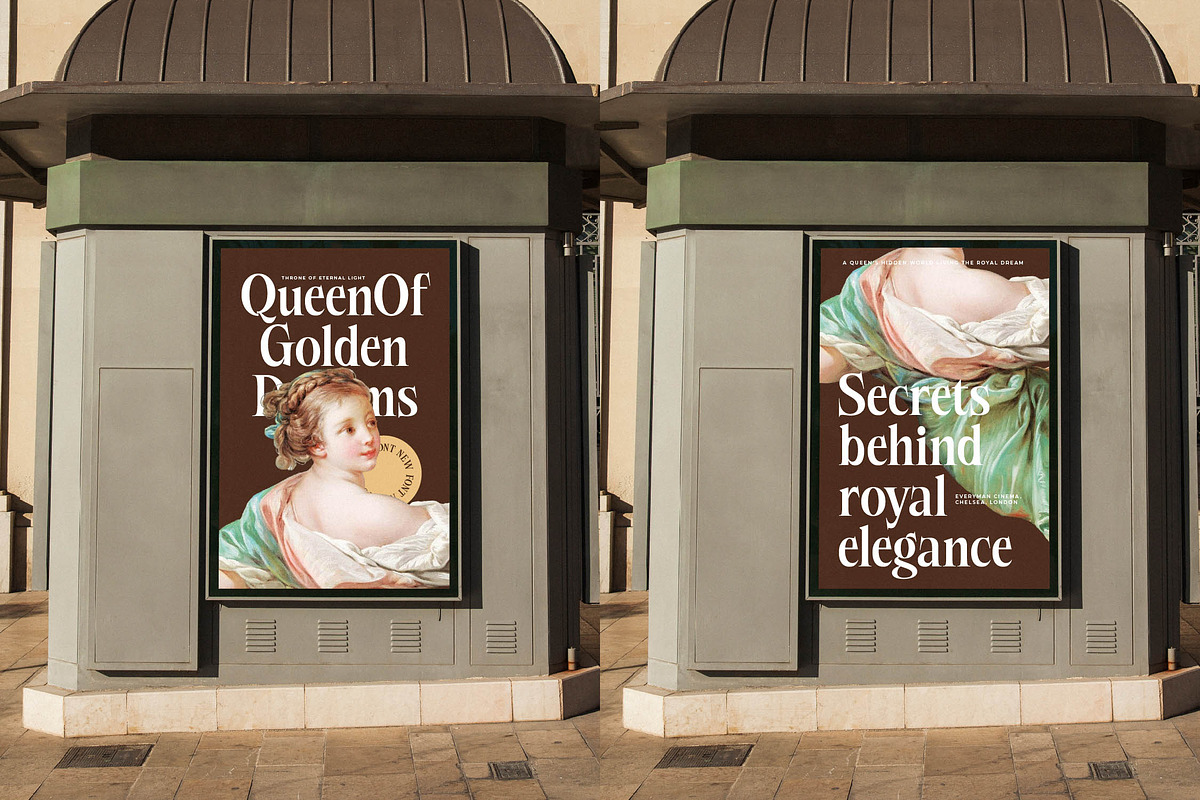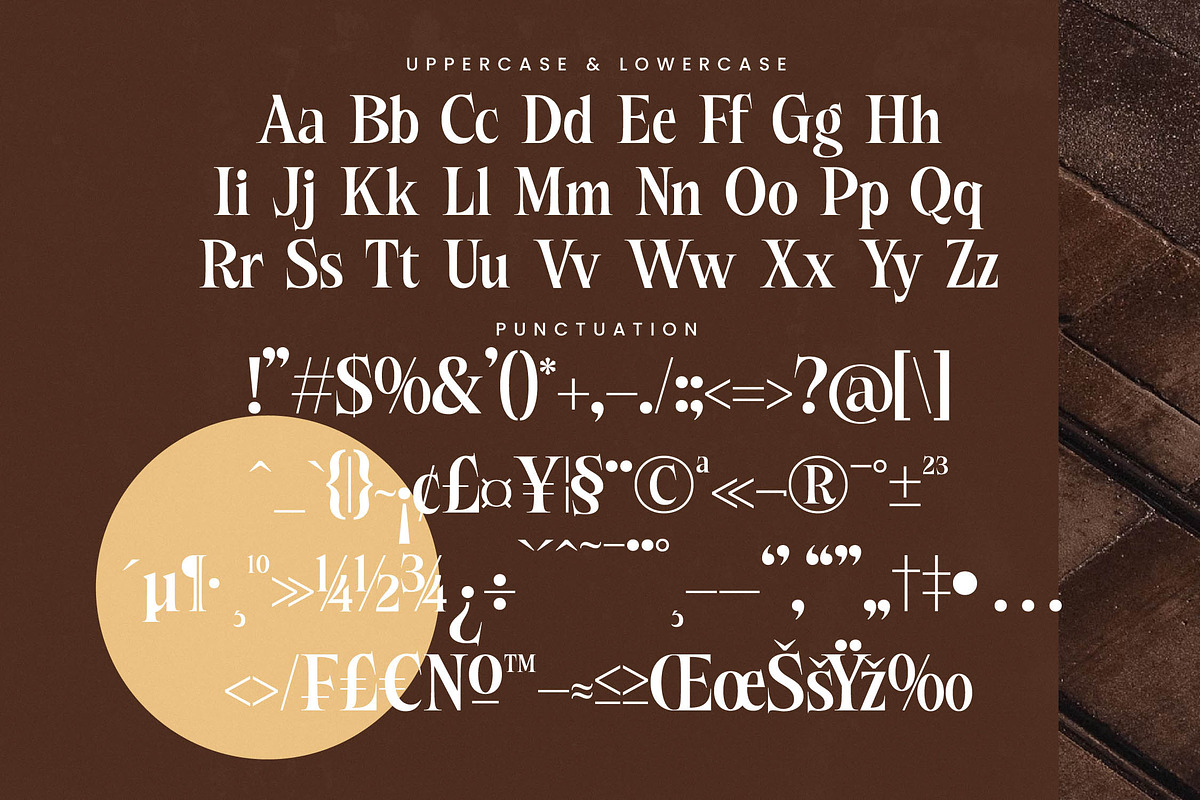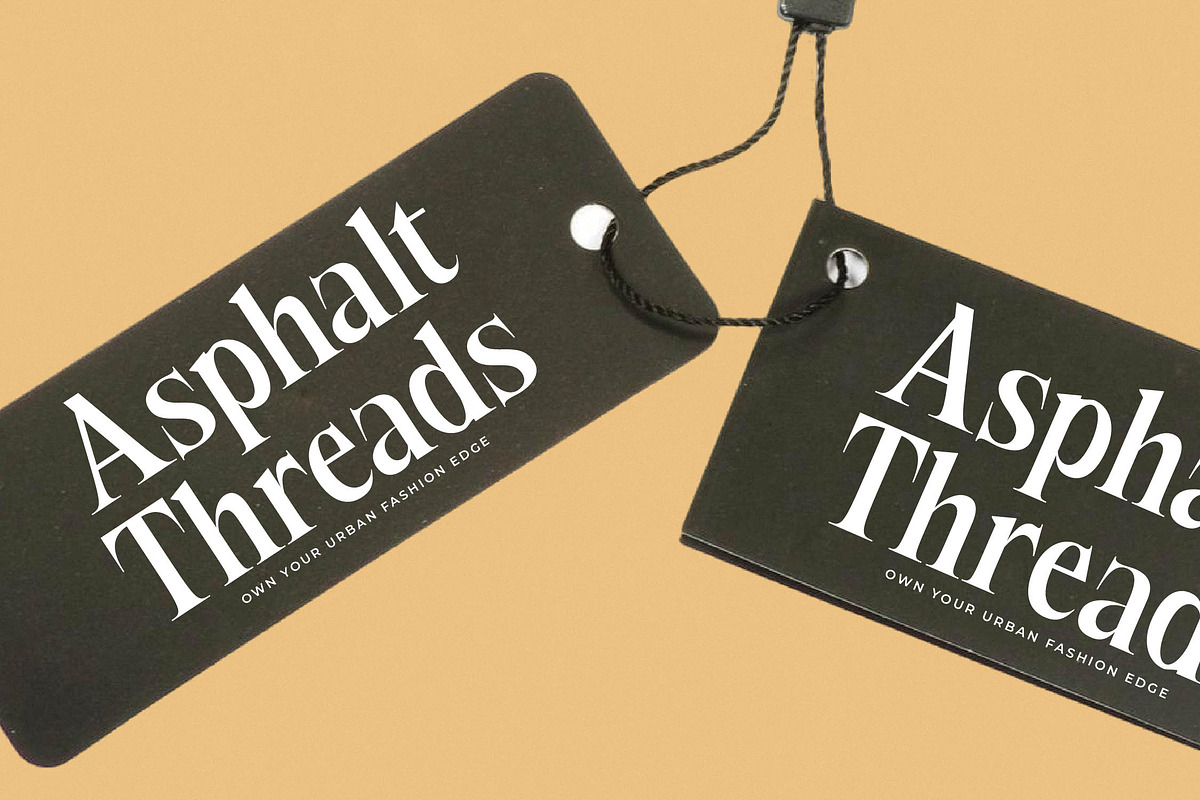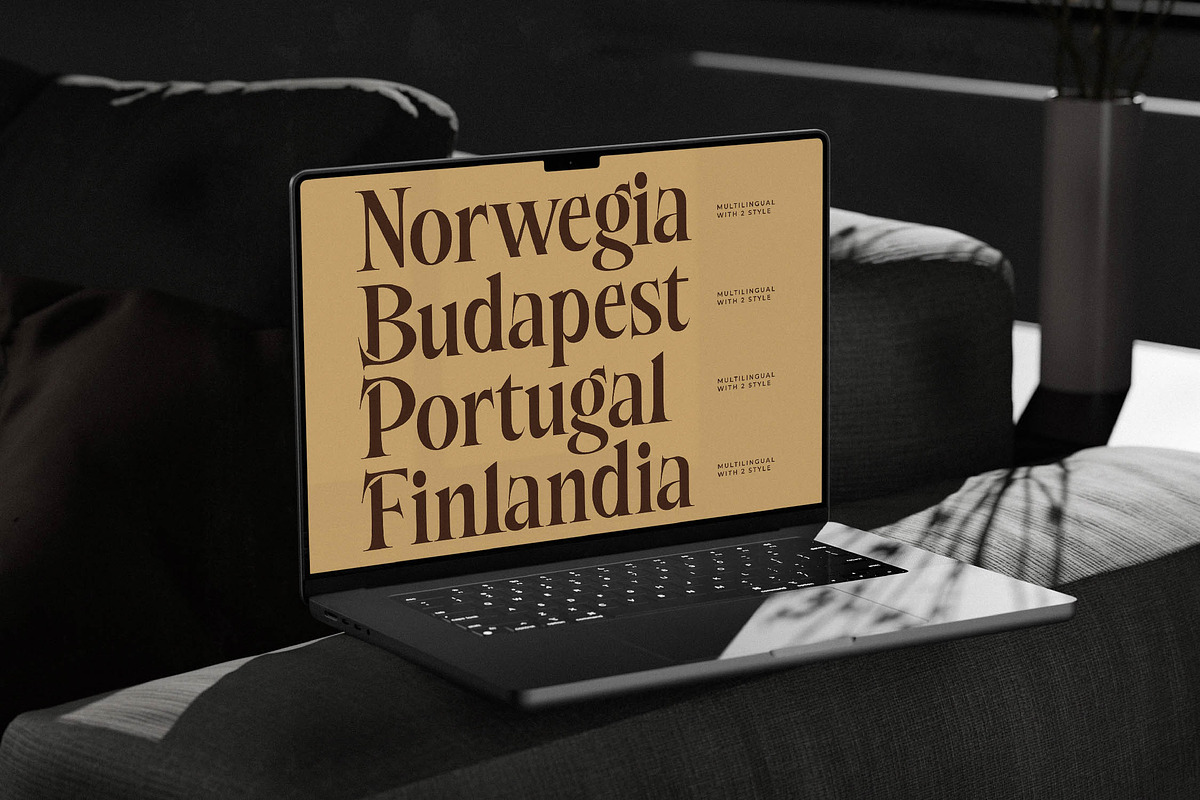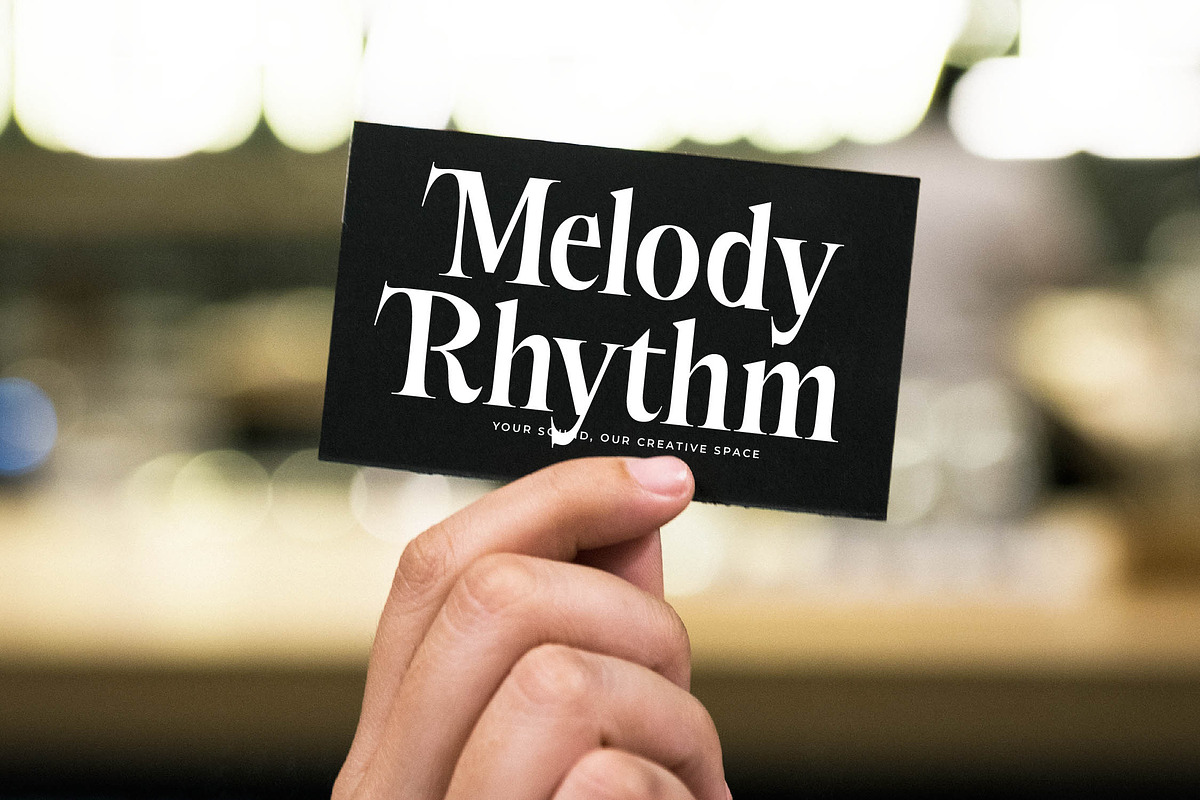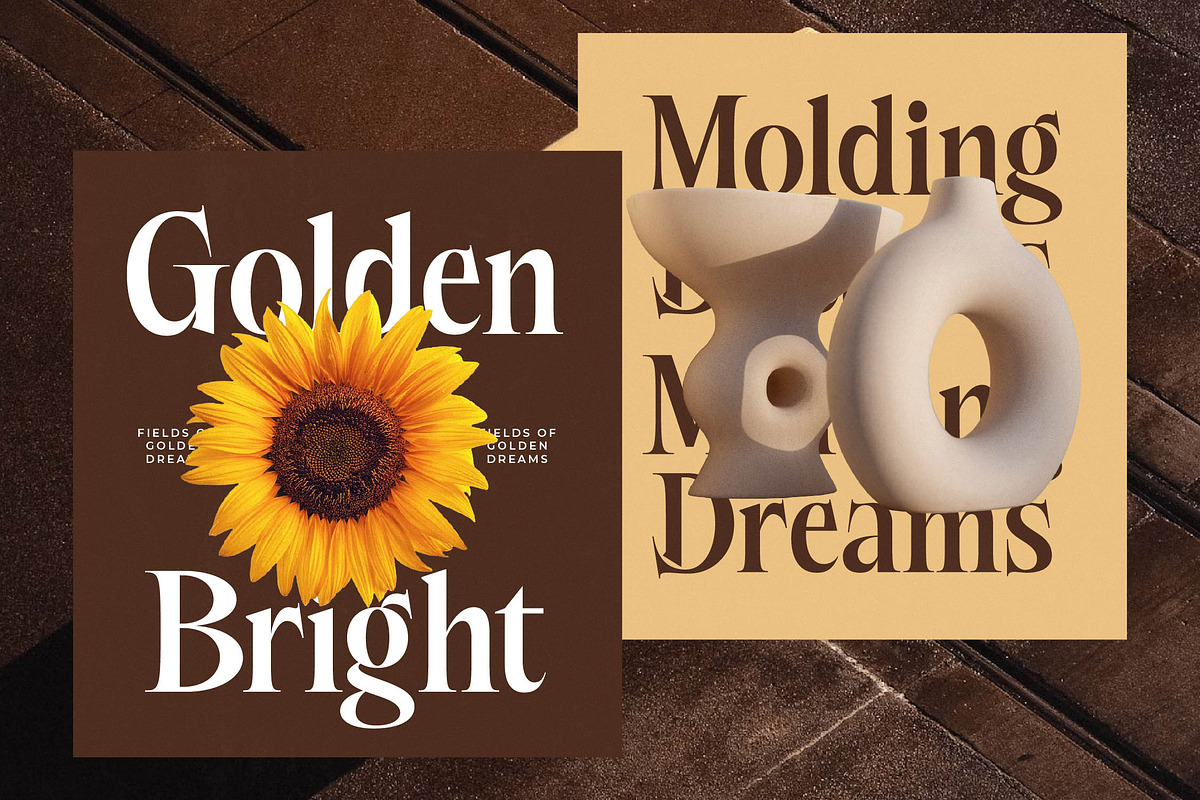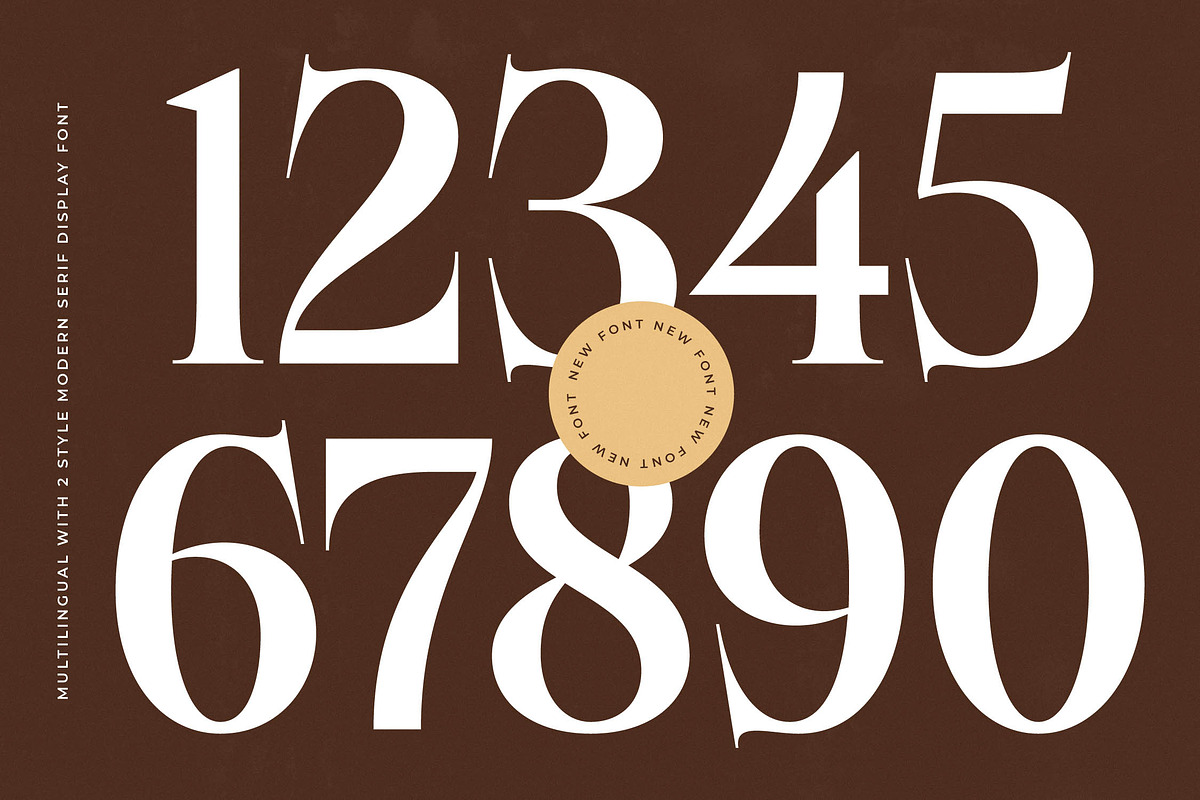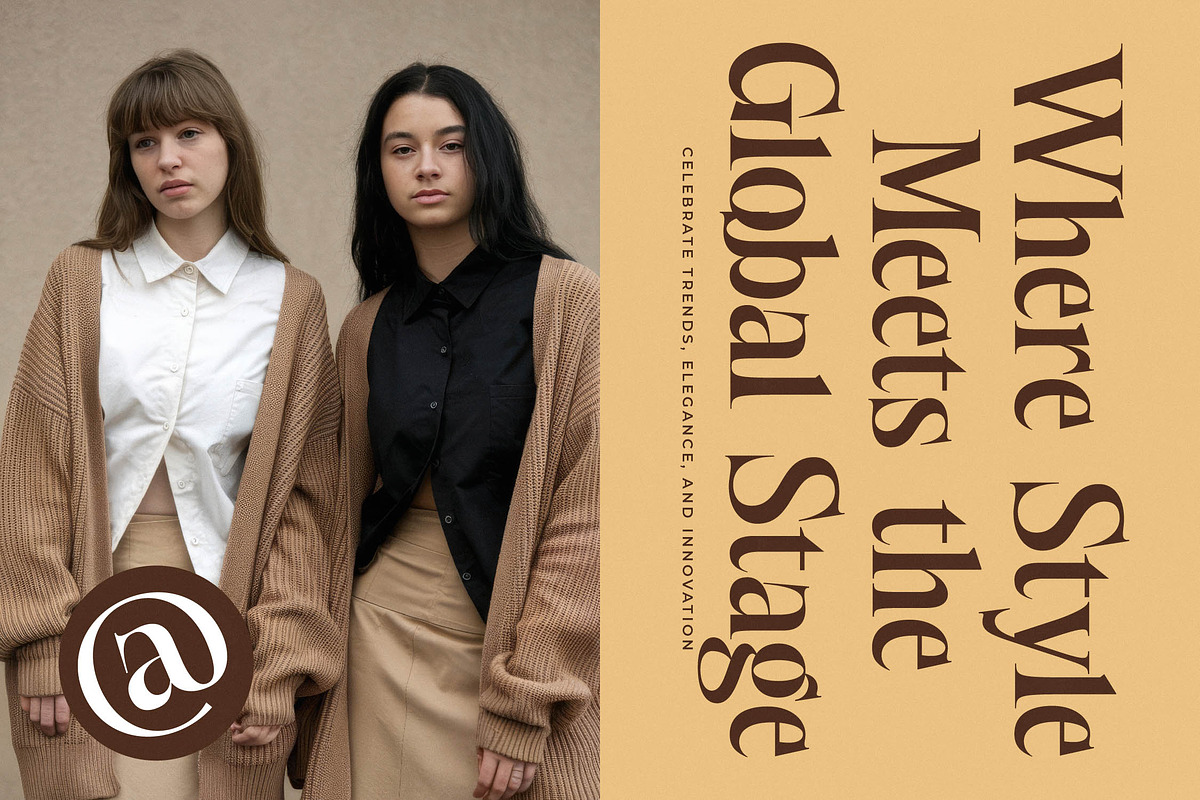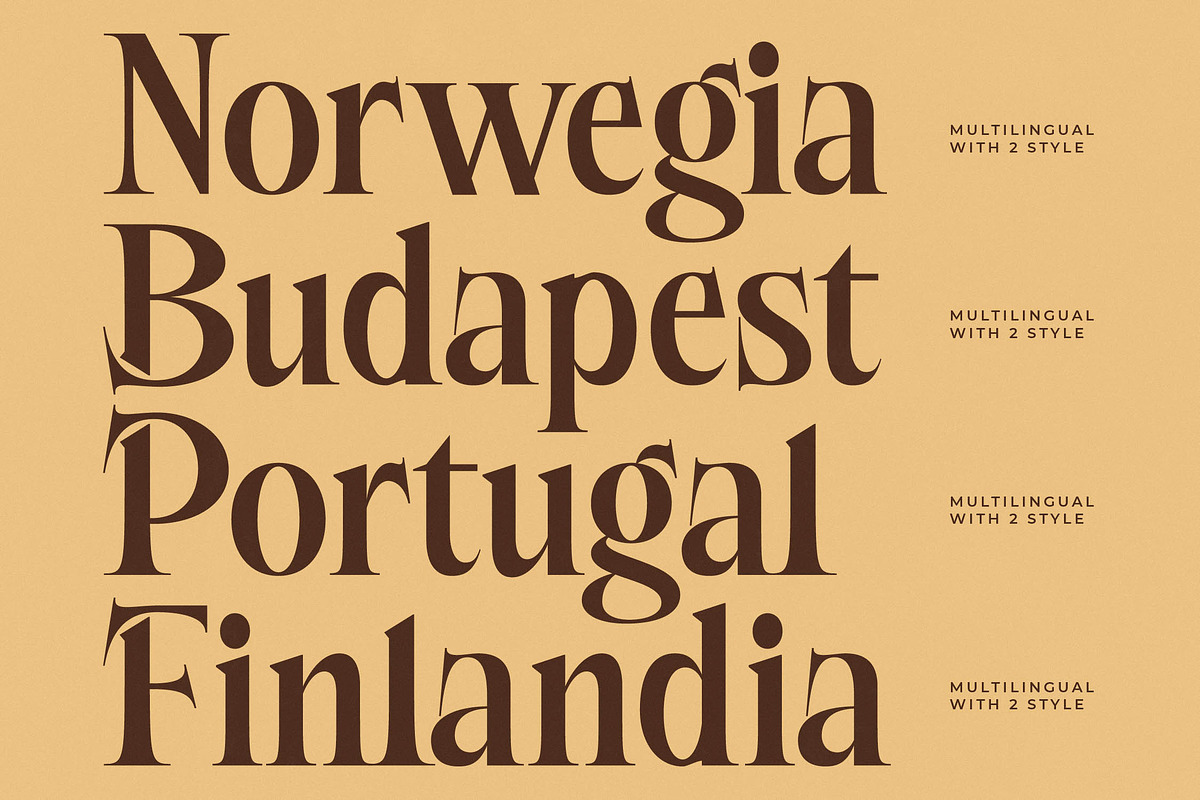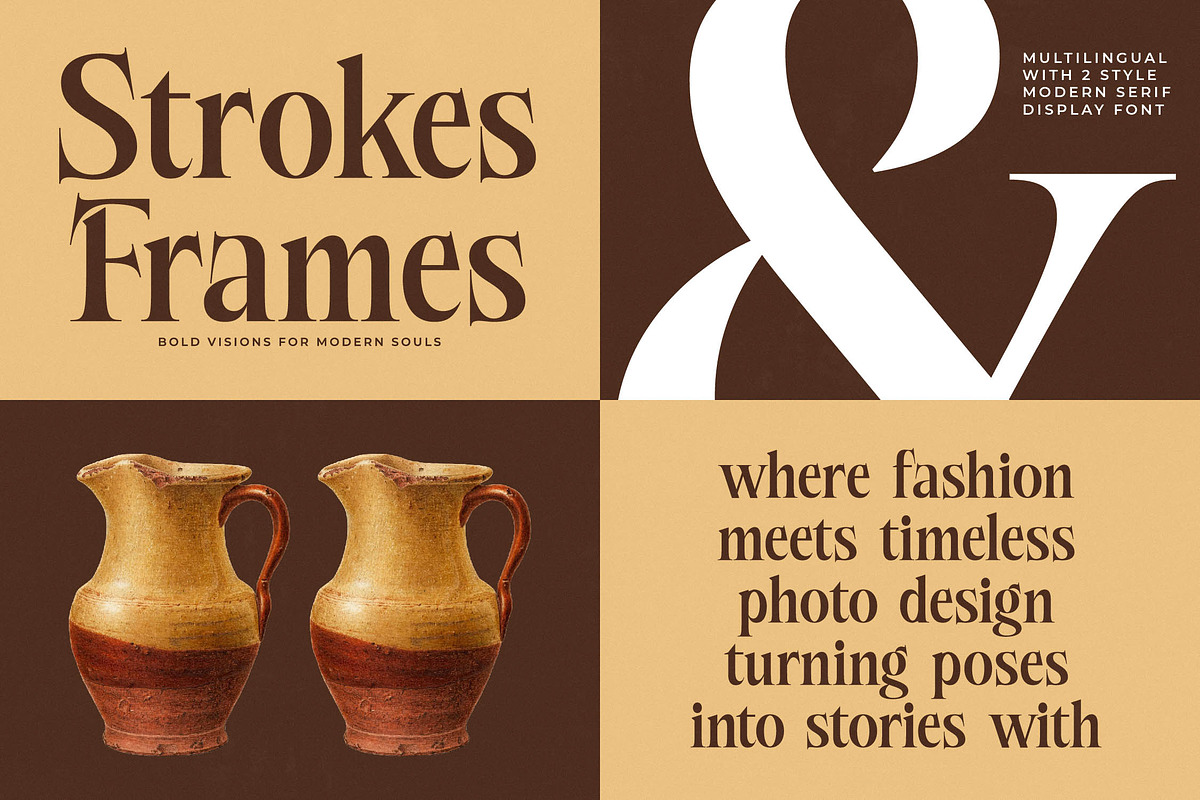
Besteza Modern Serif Display
Elevate your design narrative with the sophisticated allure of Besteza, a typeface that captures the essence of timeless elegance. This font transforms every word into a visual masterpiece, perfect for those who seek to leave a lasting impression.
Inspired by the golden era of automotive design and the sleek lines of vintage luxury, this typeface evokes a sense of cinematic nostalgia. It bridges the gap between mid-century class and contemporary precision, reflecting the confident spirit of high-end lifestyle aesthetics.
As a premier modern serif display, this typeface delivers a powerful branding impact through its meticulously crafted letterforms. The high-contrast serif strokes provide a rhythmic flow that defines luxury typography, making it an essential editorial font for projects that demand authority and grace.
Staying ahead of the modern serif trend, this typeface is designed to meet the demands of today's visual culture where character-driven typography is king. It stands out among editorial display fonts by offering a unique silhouette that feels both experimental and classic, ensuring your work remains at the forefront of design.
This versatile typeface is the ultimate choice for high-end logo design and comprehensive corporate branding identity systems. Whether you are working on a luxury editorial layout, premium product packaging, an elegant wedding invitation suite, or a cutting-edge fashion lookbook, it adapts seamlessly to any creative vision.
Boasting a rich library of 020 ligatures and 041 alternates, this font allows for endless customization and unique word shapes. The inclusion of decorative swashes and full multilingual support for international characters ensures that your creative reach is global and your typography is always expressive.
- Ligature 020 Alternate 041